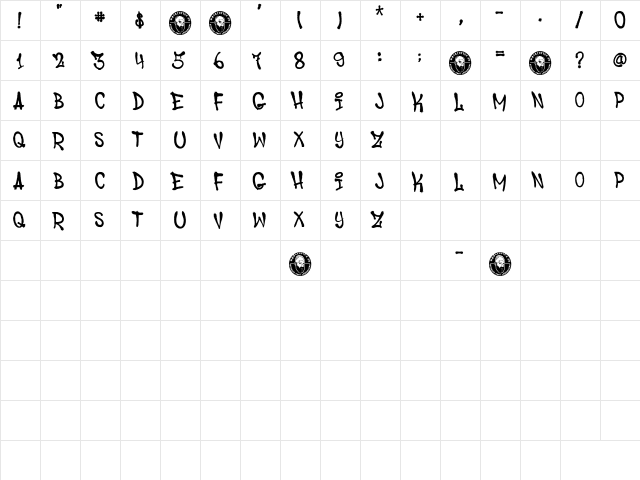
Graffiti City Regular
| Designer | Woodcutter Manero |
Design Context for Graffiti City Typeface
Graffiti City is a composed and adaptable typeface that performs quietly and consistently across a wide range of design contexts.